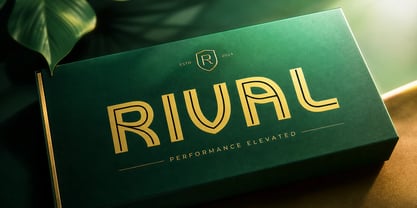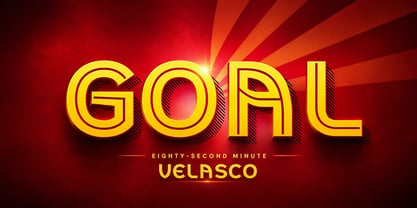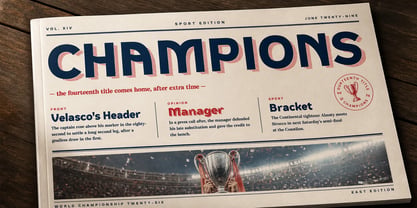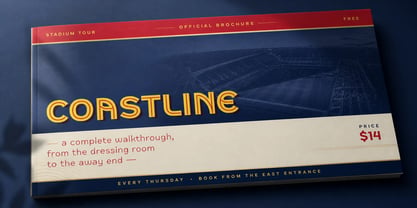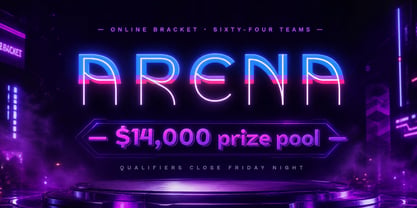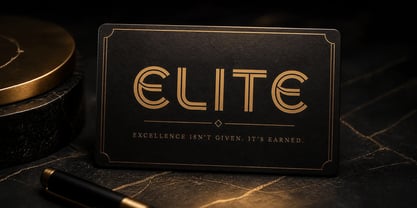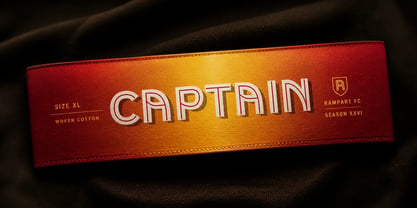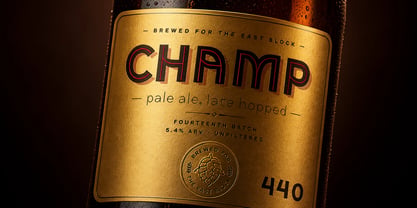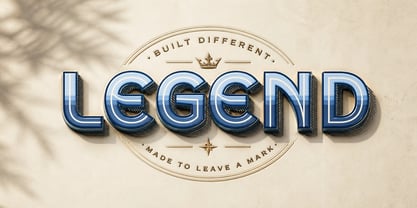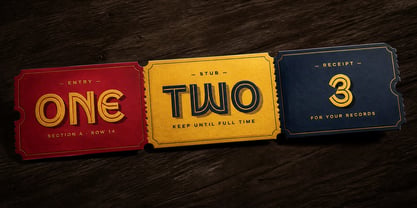
World Championship
World Championship is a layered geometric display sans built for stadium-scale lettering.
Each letter sits on a strict geometric skeleton — perfect circles, straight stems, even sidebearings — and the family ships in nine companion styles that stack at exactly the same coordinates: a Regular fill, a Bold and a Thin weight, an Inline that opens a hairline through the body, a Shadow and a WithShadow for depth, and three Fade variants that band the letterform in offset color stripes. Layer them and you get the inset-and-shadow chrome of an arena scoreboard or the chromatic banding of a televised fixture title; use any one alone and you get a clean, official-looking display sans.
It is the kind of lettering you can picture lit across a press-box wall the night of a final, or stamped along the side of a coach pulling into a depot at four in the morning.